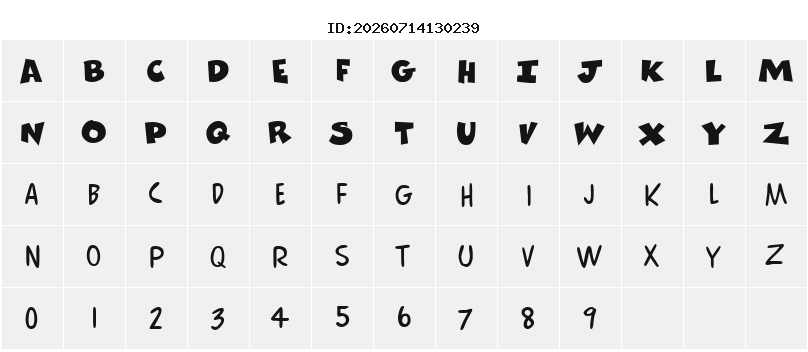
• Font Name: Harpune
• Full Font Name: Harpune
About Harpune.ttf
Harpune.ttf is a modern, elegant sans-serif font designed for ultimate readability and visual harmony. Perfect for branding, headlines, web design, and print materials.